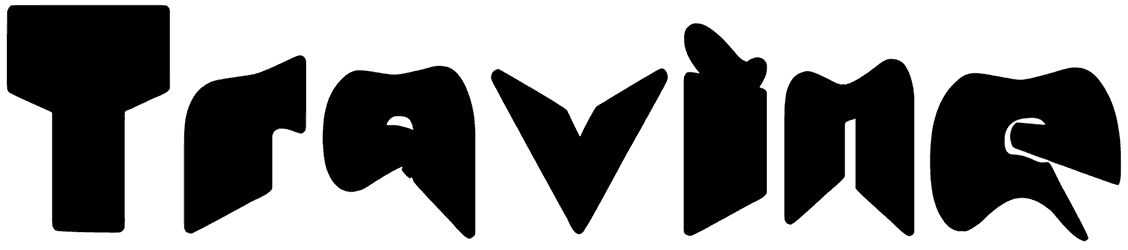
Travine Font
You can add a sense of jaunty, smudgy, and innovative to your artwork with a distorted font like Travine that is designed in a wavy and cluttered style. Although reading this font would be a bit challenging, it can be included as a decorative font in posters, logos, billboards, and online advertisements.